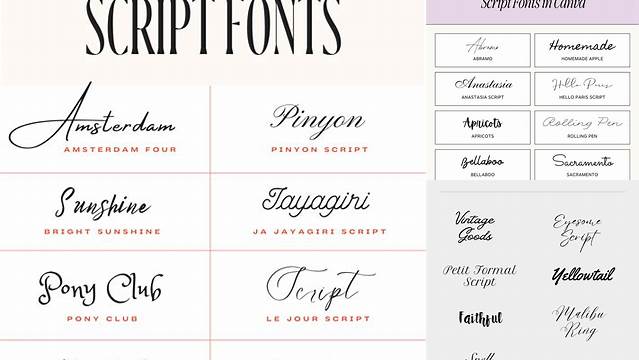
Elegant Cursive Fonts For Canva: Design Like A Pro
Hey guys! Are you looking to add a touch of luxury and elegance to your designs? Well, you've come to the right place! We're diving deep into the world of luxury cursive fonts on Canva, and trust me, there are some absolute gems waiting to be discovered. Let's get started and turn your projects into masterpieces!
Cursive Fonts for Wedding Invitations
When it comes to wedding invitations, the font is almost as important as the details themselves. You want something that speaks of romance, sophistication, and timeless beauty. That's where luxury cursive fonts truly shine. Imagine receiving an invitation with flowing, graceful letters that hint at the special occasion to come. Canva has a fantastic selection that can make your invites stand out. Think about fonts with elegant swashes and loops, creating a sense of fluidity and grace. These fonts often evoke a sense of tradition and formality, making them perfect for classic wedding themes. Beyond aesthetics, readability is key. A beautiful font that's hard to decipher defeats the purpose. Look for cursive fonts that maintain clarity while showcasing their artistic flair. Consider the overall theme of your wedding. Is it rustic, modern, or traditional? The font should complement the style you've chosen. For a romantic, vintage-inspired wedding, opt for a font with a delicate, handwritten feel. If your wedding is more modern and minimalist, a cleaner, more streamlined cursive font might be the better choice. Remember to test different font pairings to ensure your invitation looks cohesive and harmonious. Pairing a cursive font with a simpler, sans-serif font can create a balanced and visually appealing design. Don't be afraid to experiment and see what works best for you. And hey, Canva makes it super easy to try out different options, so have fun with it!
Best Script Fonts for Branding
Branding is all about making a lasting impression, and your font plays a huge role in that. The best script fonts can inject personality and elegance into your brand identity. Think about brands like luxury fashion houses or high-end beauty companies – they often use cursive fonts to convey a sense of sophistication and exclusivity. But finding the right script font for your brand is crucial. It needs to reflect your brand's values and resonate with your target audience. A playful script might work wonders for a children's brand, but it might not be the best fit for a financial institution. Think about the message you want to send. Do you want to appear modern and trendy, or classic and timeless? Your font choice should align with your overall brand strategy. Consider the legibility of the font as well. A beautiful, intricate script might look stunning at first glance, but if it's difficult to read, it won't serve its purpose. Ensure your brand name is clear and easily recognizable. Experiment with different weights and styles of script fonts to see what works best for your logo and marketing materials. A bolder script might be suitable for headlines, while a lighter script could be used for body text. Don't be afraid to mix and match fonts, but make sure they complement each other and create a cohesive look. Canva offers a plethora of options, so take advantage of them! A consistent font choice across all your branding materials, from your website to your social media graphics, helps create a strong and recognizable brand identity. It builds trust and familiarity with your audience, which is essential for long-term success. So, choose wisely and let your script font speak volumes about your brand.
Luxury Fonts for Logo Design
Your logo is the face of your brand, and the font you choose is a key element in shaping that identity. Luxury fonts can elevate your logo, adding a touch of class and sophistication. When designing a logo, you want a font that not only looks beautiful but also conveys the right message about your brand. Consider the personality you want your logo to exude. Is it elegant, modern, playful, or professional? The font should align with your brand's values and target audience. A well-chosen cursive font can add a sense of uniqueness and artistry to your logo. It can make your brand stand out from the crowd and create a memorable impression. However, it's crucial to ensure the font is legible and scalable. Your logo needs to look just as good on a small business card as it does on a large billboard. Think about the simplicity of the font. A clean and elegant font can often be more effective than a complex and ornate one. The goal is to create a logo that is easily recognizable and memorable. Experiment with different font pairings to see what works best. Combining a luxury cursive font with a simple sans-serif font can create a balanced and visually appealing design. Pay attention to the spacing between letters and words. Proper kerning and tracking can make a significant difference in the overall look and feel of your logo. Canva provides tools to adjust these settings, so take advantage of them. Ensure your logo is versatile and can be used across various platforms and mediums. It should look good in both color and black and white. A timeless logo design is one that will remain relevant for years to come. Choose a font that is classic and enduring, rather than trendy and fleeting. A luxury font can be a powerful tool in logo design, but it's essential to use it strategically to create a lasting and impactful brand identity.
Free Cursive Fonts on Canva
One of the best things about Canva is the incredible selection of fonts available, including a ton of free cursive fonts. You don't have to break the bank to add a touch of elegance to your designs. These free options can be just as stunning as paid fonts, offering a wide range of styles and personalities. Whether you're working on wedding invitations, social media graphics, or branding materials, there's a free cursive font on Canva that's perfect for your project. Exploring the free font library is like discovering a treasure trove of design possibilities. From delicate and flowing scripts to bold and dramatic cursives, there's something for every taste and style. Don't underestimate the power of free fonts. Many of them are professionally designed and offer exceptional quality. The key is to browse the selection and find the fonts that resonate with your vision. When using free fonts, it's important to consider licensing restrictions. Most free fonts on Canva are available for commercial use, but it's always a good idea to double-check the terms and conditions. Experiment with different fonts and see how they look in your designs. Canva makes it easy to try out various options and find the perfect fit. Don't be afraid to mix and match fonts to create a unique and visually appealing look. Combining a free cursive font with a simpler font can often create a balanced and harmonious design. Remember, the best font is the one that effectively communicates your message and enhances the overall aesthetic of your project. Free fonts can be a fantastic resource for designers on a budget. They allow you to create professional-looking designs without spending a fortune. Canva's free cursive fonts are a testament to the fact that elegance and style don't always come with a price tag.
Premium Cursive Fonts on Canva
While Canva offers a fantastic selection of free cursive fonts, sometimes you might want to splurge on premium cursive fonts to really elevate your designs. These fonts often offer unique features, intricate details, and a higher level of craftsmanship. Investing in premium fonts can be a game-changer, especially for branding projects and designs where you want to make a strong impression. Premium fonts often come with extended licensing options, giving you more flexibility in how you use them. They might also include additional font weights, styles, and glyphs, allowing for greater creative control. When considering a premium cursive font, think about the long-term value it will bring to your designs. Will it help you create a more professional and polished look? Will it enhance your brand identity? Premium fonts can be a worthwhile investment if they align with your goals and vision. Canva's premium font selection includes a diverse range of cursive styles, from classic and elegant to modern and edgy. You can find fonts that are perfect for everything from wedding invitations to website headers. One of the advantages of premium fonts is their exclusivity. They're often less commonly used than free fonts, which can help your designs stand out from the crowd. Before purchasing a premium font, be sure to preview it in your designs and see how it looks in different contexts. Canva allows you to try out premium fonts before committing to a purchase. Consider the overall aesthetic you're trying to achieve. A luxury cursive font can add a touch of sophistication and elegance, while a more playful script can inject personality and charm. Premium fonts can elevate your designs, but it's important to choose them wisely. Think about your budget, your design goals, and the overall message you want to convey. With the right premium cursive font, you can take your designs to the next level.